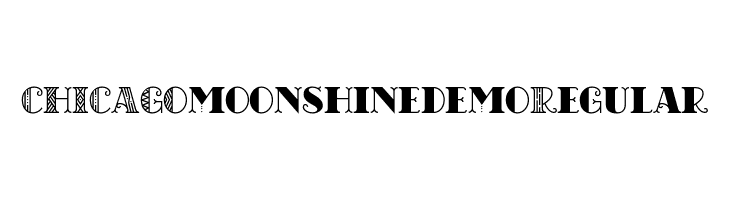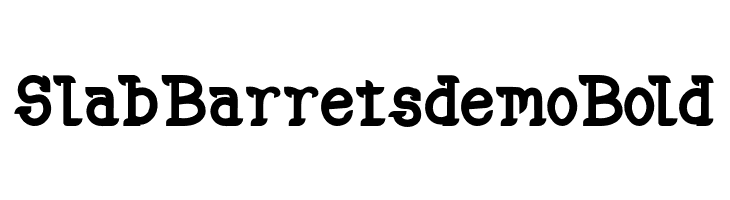
A bold slab serif font with strong, block-like serifs and consistent stroke width.
A playful, hand-drawn font with tall, narrow characters and a whimsical style.
A playful, hand-drawn font with wavy, irregular strokes.
A bold, liquid-inspired font with a dynamic and playful design.
A decorative and bold font with intricate patterns and high contrast.
A decorative, abstract font with geometric shapes and dots, evoking a futuristic or alien aesthetic.
A playful, hand-drawn font with a whimsical and modern style.
A stylish and flowing script font with elegant cursive strokes.
A modern, hollow geometric font with a futuristic style.
A futuristic, angular font with bold geometric shapes.